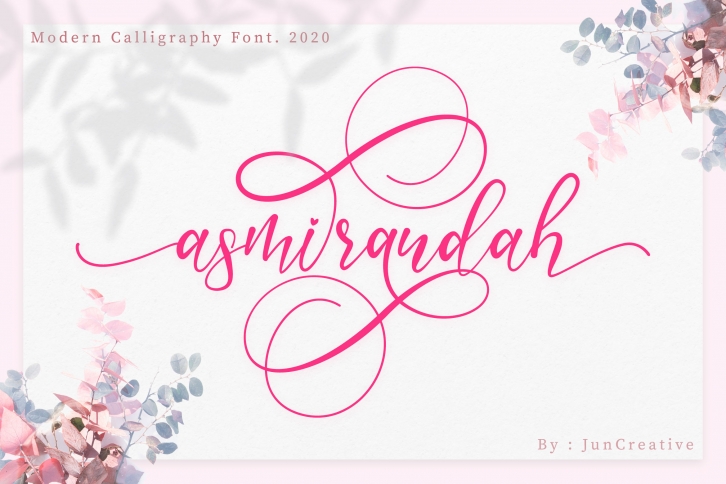
Asmirandah Modern Script is a great font that was designed by JunCreative. Imagine the amount of combinations you can create using this font! The archive is 1.3 MB and it was released on February 10, 2020. Asmirandah Modern Script looks beautiful on wedding invitations, greeting cards, logos, posters, labels, t-shirt designs, logos, business cards and is perfect for use in ink or watercolor works, fashion, magazines, packaging and food menus, children's books and more!